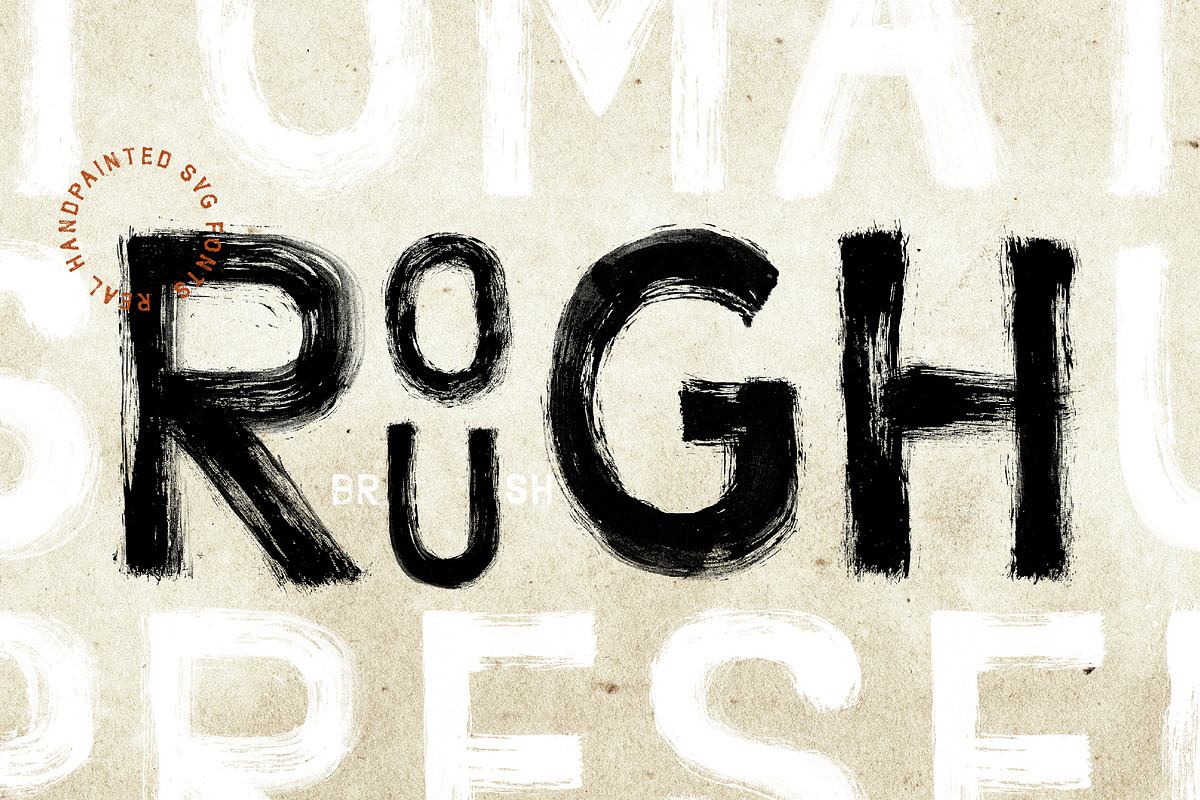
Handpainted Rough Brush SVG Fonts Free Download
Handpainted Rough Brush SVG Fonts Free Download is a dynamic and expressive typeface that captures the authentic feel of hand-painted brush strokes. With its rough, textured edges and natural imperfections, this font is perfect for creative projects that require a bold, artistic look, such as posters, branding, t-shirt designs, logos, and social media graphics.
The Handpainted Rough Brush SVG Fonts bring a handmade, organic vibe to your designs, making them feel personal and unique. The SVG format ensures that the font retains its hand-painted texture and depth, adding an extra layer of creativity and authenticity.